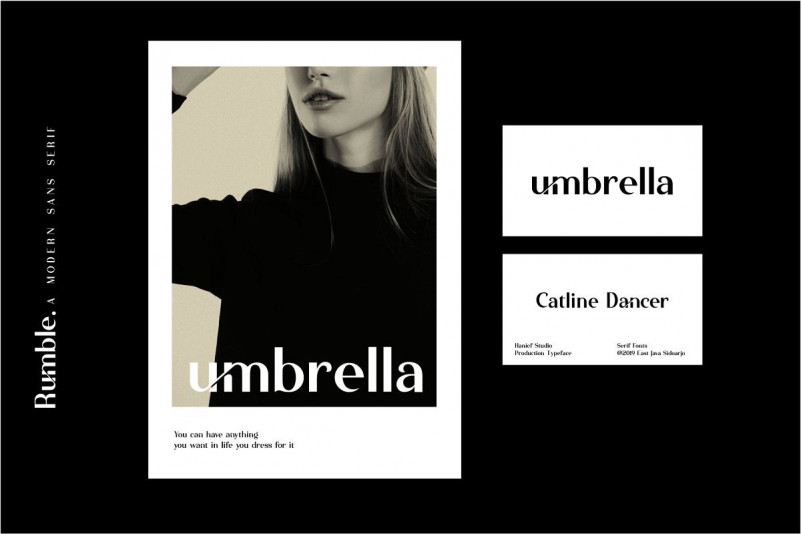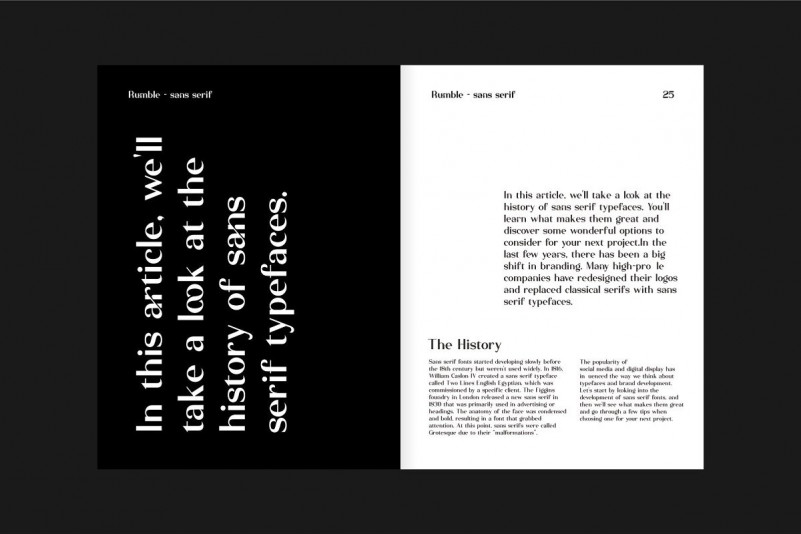
Rumble Modern Sans Font
This is a modern sans serif. The font is represented by condensed lowercace and extended uppercase. To get an elegant and contemporary design, combine them together. Introducing Rumble Font! It’s designed and shared by Hanzel Studio. Combines elegant in letters, making this font look exclusive and elegant. With high letters display and thin in the anatomy of each letter. It’s a gorgeous sans-serif typeface that is both classically elegant and inherently modern. Create beautiful wedding invitations, use it as an elegant solution for your next magazine layout, or choose Rumble for any graphics that require a sleek look with a vintage flair.. It’s based on classic letterforms for publishing and display graphics, so you can give your text a classic, elegant feel with Rumble clean, high-contrast lines and alternating thick and thin strokes.